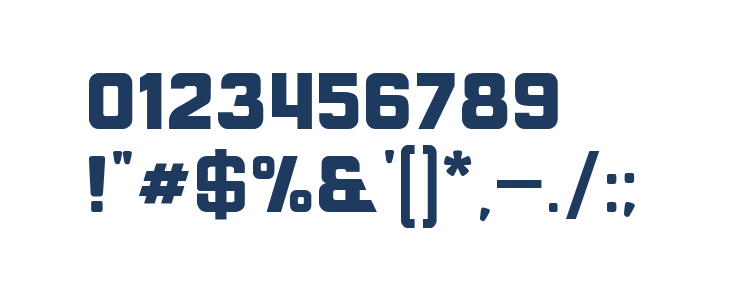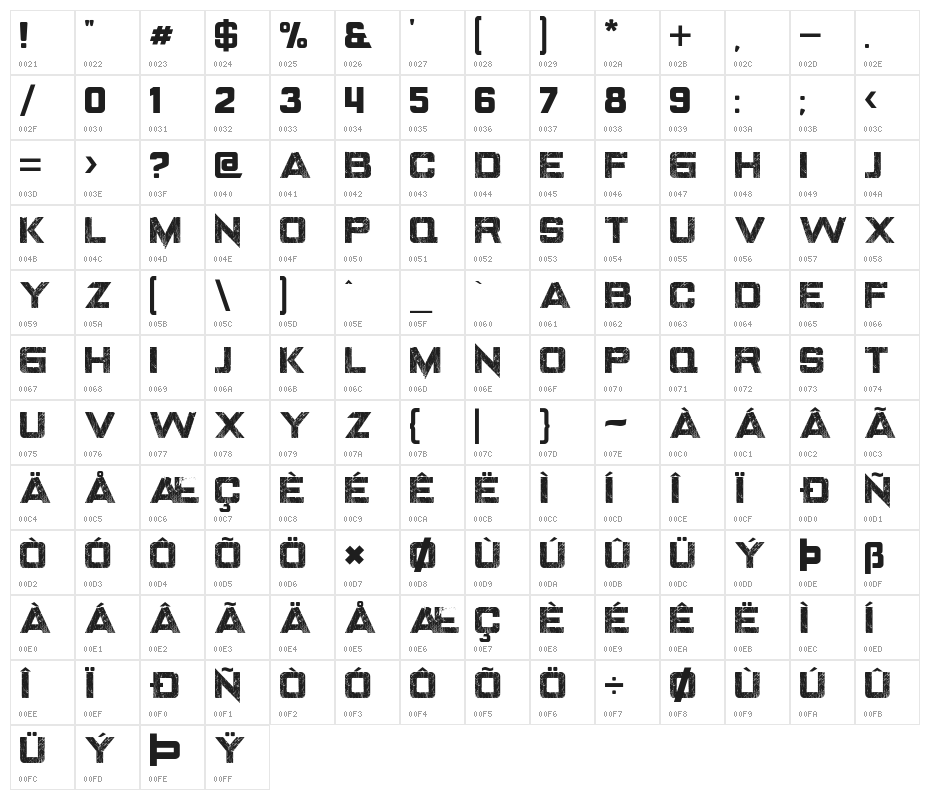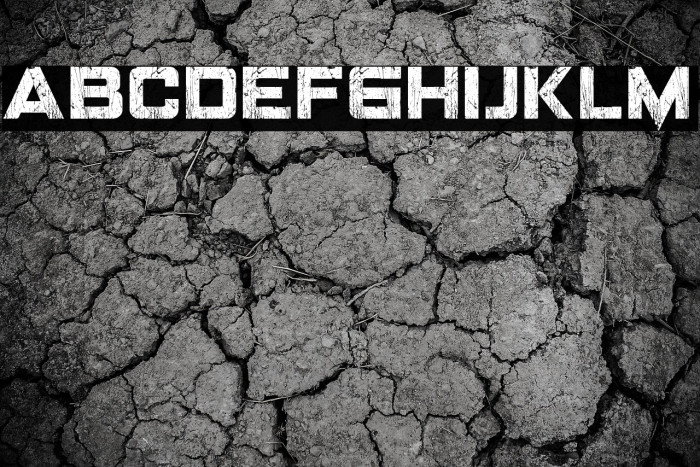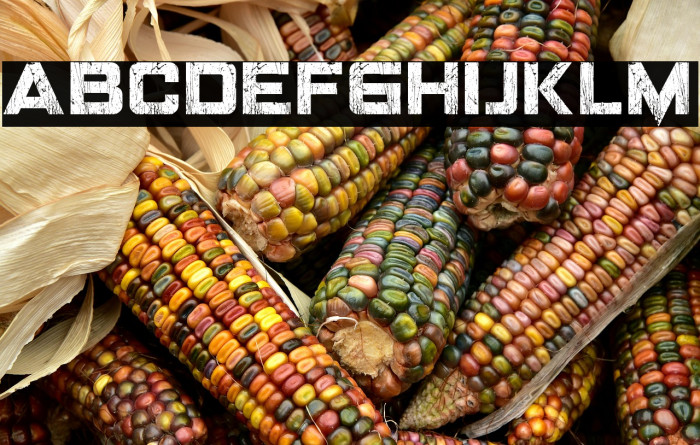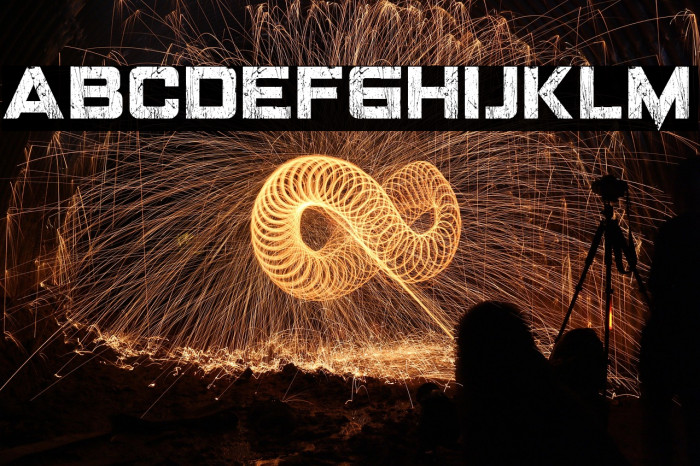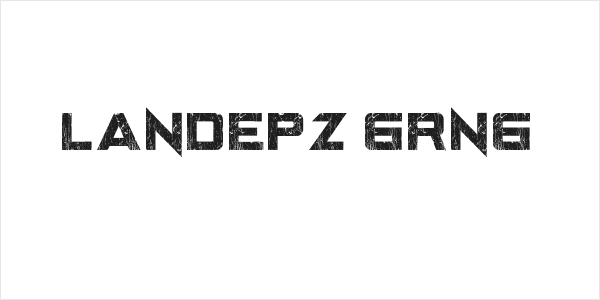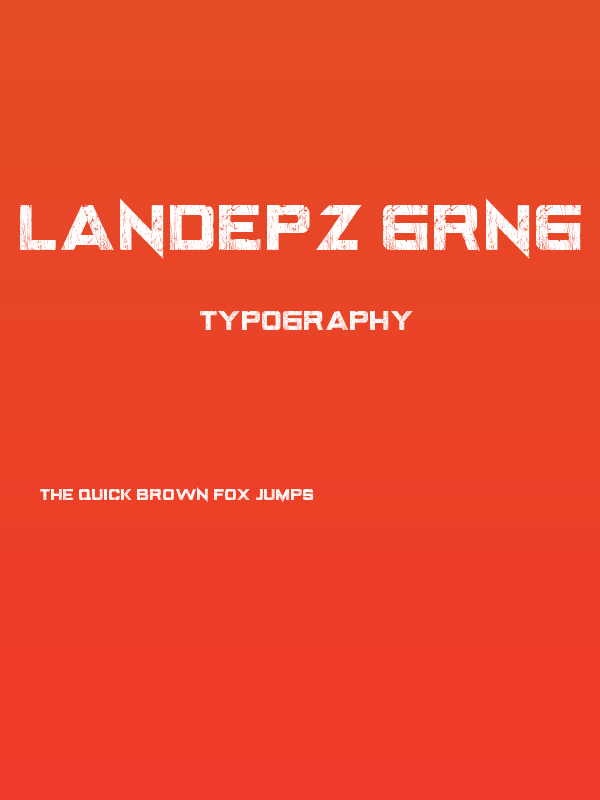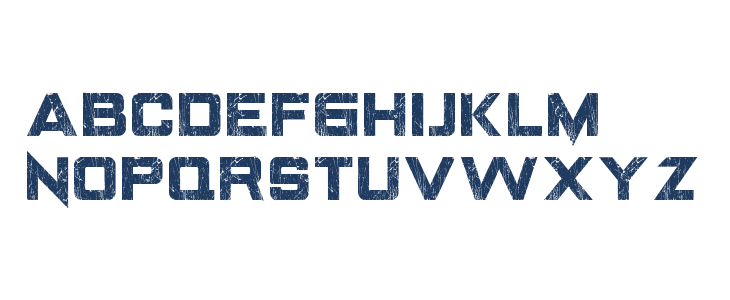
LANDEPZ GRNG Font
LANDEPZ GRNG Description
This font features a bold, distressed style with a rugged texture that gives it a worn, vintage appearance. The uppercase letters are strong and impactful, making them ideal for attention-grabbing designs. The characters are uniformly wide, with consistent spacing that maintains readability despite the distressed effect. Numbers and special characters follow the same bold and textured style, ensuring a cohesive look across all text elements. The font's unique aesthetic is perfect for projects that require a gritty, industrial feel.
Overall StyleVintage
Proposed ProjectsIdeal for posters, album covers, branding for edgy products, and any design needing a vintage, industrial touch.